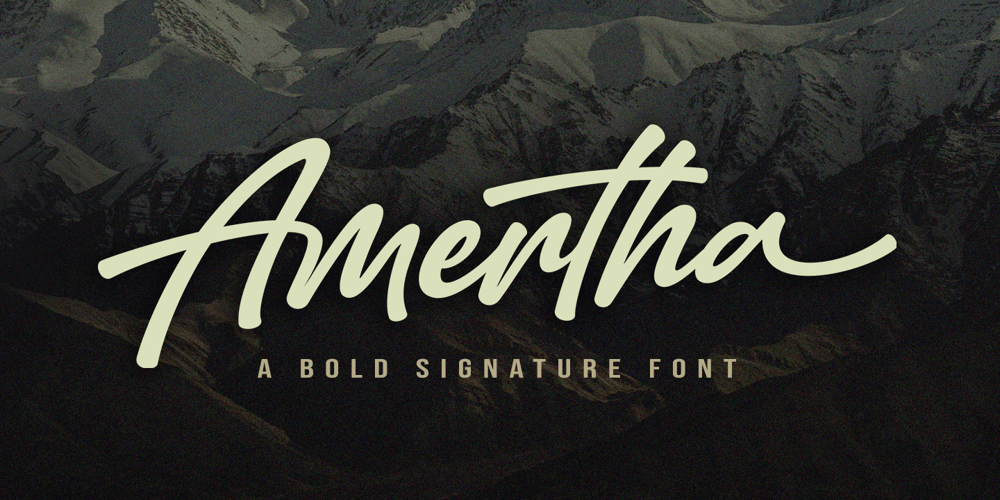
Amertha Font Family was designed by Måns Grebäck, Rangga Subekti and published by Mans Greback. Amertha contains 1 styles and family package options. Amertha is a bold logotype script font created in 2020. It is wild and fast, and has beautiful, signature style brush strokes. The expressive movement of the letters creates a feeling of vitality and will grab the attention the viewer.The typeface has OpenType features such as ligatures and a complete alternate alphabet, which makes it natural and adaptable to any project. It has an extensive lingual support, covering all European Latin scripts.The font contains all characters you’ll ever need, including all punctuation and numbers.